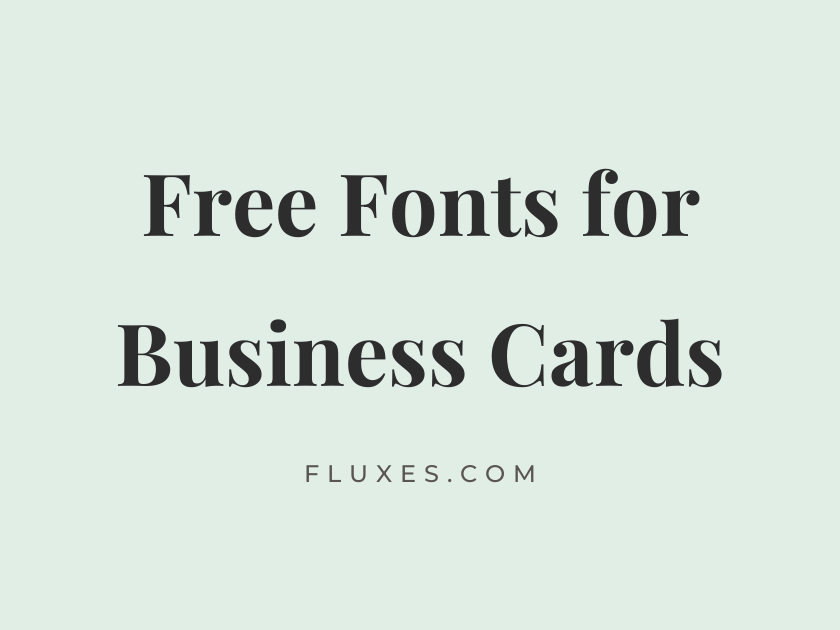
65 Best Free Fonts for Business Cards
A business card has about two square inches to do the work of a full brand identity: signal professionalism, hint at personality, and stay legible when it is tucked into a wallet or read across a table. Typeface choice carries most of that weight, since there is no room for elaborate layout tricks to compensate for a font that goes muddy at ten points. The good news is that some of the most versatile, well-crafted typefaces for print identity work are free to license through Google Fonts, covering everything from restrained corporate sans-serifs to hand-lettered scripts for boutique studios.
What follows is a wide-ranging survey organized loosely by mood, from classic serif letterforms through modern grotesques, bold wordmark faces, and a few decorative scripts best used sparingly for a name or tagline.
1. Playfair Display
High contrast strokes and a fashion-editorial flair make this a favorite for law firms, boutiques, and anyone who wants their name to look like a headline. It pairs beautifully with a plain grotesque for contact details, since its drama needs a calm partner. At very small sizes the hairlines can thin out on cheap card stock, so reserve it for a name or title rather than a full paragraph.
2. EB Garamond
A revival of Claude Garamond’s Renaissance letterforms, this typeface reads as literate and unhurried. It suits attorneys, editors, consultants, and anyone whose card should feel like it belongs on letterhead rather than a flyer.
3. Lora
Lora carries just enough calligraphic warmth in its curves to feel personal without tipping into decorative territory. It works well for hospitality, wellness, and food-adjacent brands that want serif credibility with a softer edge.
4. Merriweather
Designed originally for screen reading, Merriweather has sturdy, ink-trap-influenced serifs that hold up remarkably well when printed small. That durability at tiny sizes makes it a dependable pick for cards packed with a title, phone number, and address.
5. Cormorant Garamond
Slender and refined, Cormorant Garamond channels old-style print typography with an almost jewelry-catalog delicacy. It shines on cards for fashion, fragrance, or fine jewelry brands, but needs generous spacing and a decent-weight card stock to avoid feeling frail.
6. Libre Baskerville
This is a workhorse for anyone wanting classic English serif gravity without licensing the original Baskerville. Its slightly enlarged x-height keeps it readable at business-card scale, which is not true of every Baskerville-style revival.
7. PT Serif
Practical rather than showy, PT Serif was built for long text and government-style documents, which gives it a sober, official quality. It reads as competent and grounded, a good fit for engineering, finance, or municipal-adjacent work.
8. Crimson Text
Modeled loosely on old-style book typefaces, Crimson Text has the unhurried rhythm of a well-set novel. Publishers, booksellers, and academics tend to gravitate toward it for that reason.
9. Spectral
Spectral was commissioned specifically for on-screen reading, so its letterforms are open and even, translating cleanly to print at small sizes too. Its restrained personality makes it an easy, low-risk choice for a studio or agency card that wants to look edited rather than decorated.
10. Bitter
A slab serif with rounded, friendly terminals, Bitter splits the difference between a serious serif and a casual display face. It suits independent food and craft businesses that want warmth without looking handmade.
11. Domine
Domine is a sturdy book serif with a slightly heavier stroke than most Garamond-style faces, giving names and titles a bit more presence on the card without shouting.
12. Vollkorn
Originally drawn for German-language books, Vollkorn has a grounded, slightly rustic character that suits artisanal and heritage brands. It is comfortable rather than flashy, which is exactly the point.
13. Alegreya
Calligraphic in origin, Alegreya has a lively rhythm to its letterforms that keeps a serif card from feeling stiff. Its italic in particular is worth pairing with the roman for a title line.
14. Noto Serif
Part of Google’s Noto superfamily built for extensive language coverage, this is a practical choice for any business printing cards in multiple scripts or serving international clients.
Between the classic serifs, efficient sans-serifs, bold wordmark faces, and the handful of scripts worth using in small doses, there is enough range here to match almost any brand personality without spending a cent on licensing. The right choice usually comes down to restraint: pick a typeface that fits the business, set it cleanly, and let the paper and printing do the rest of the work.